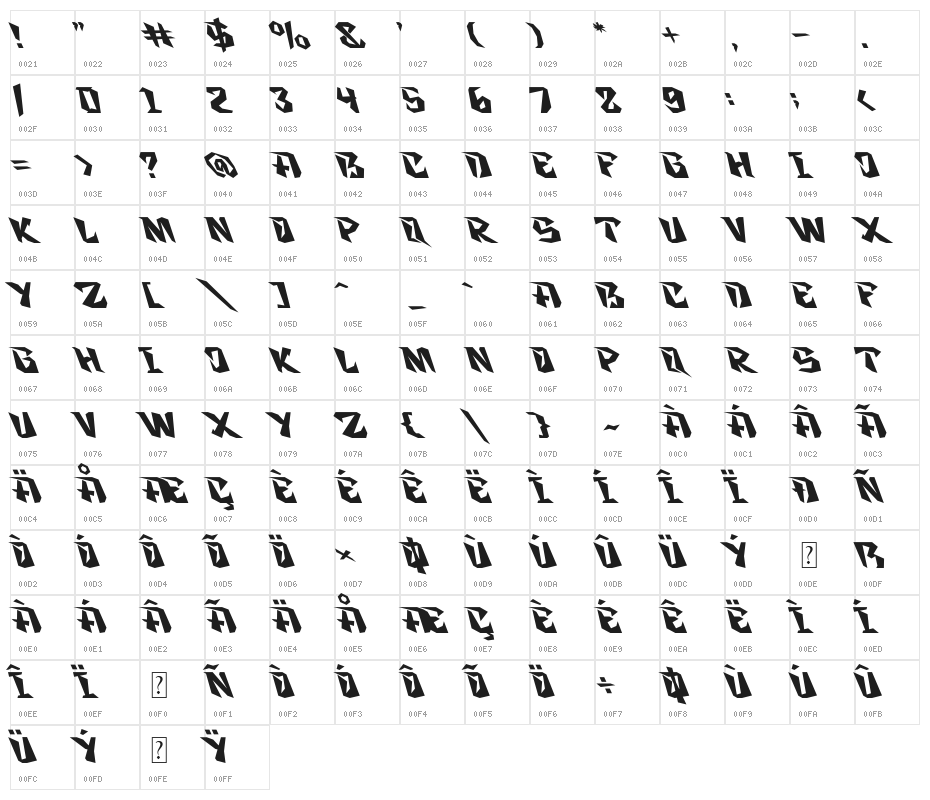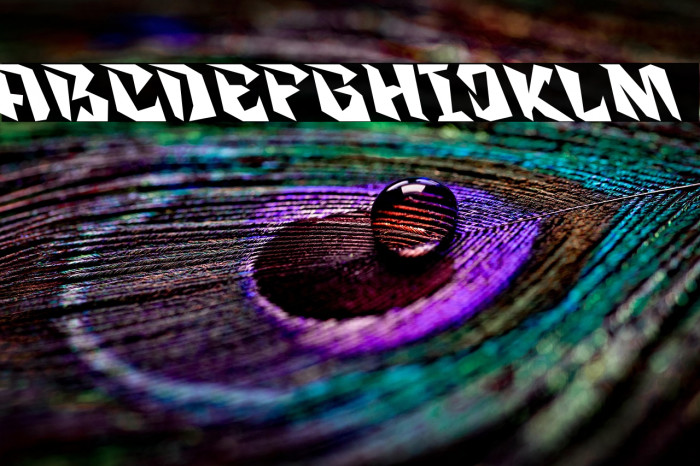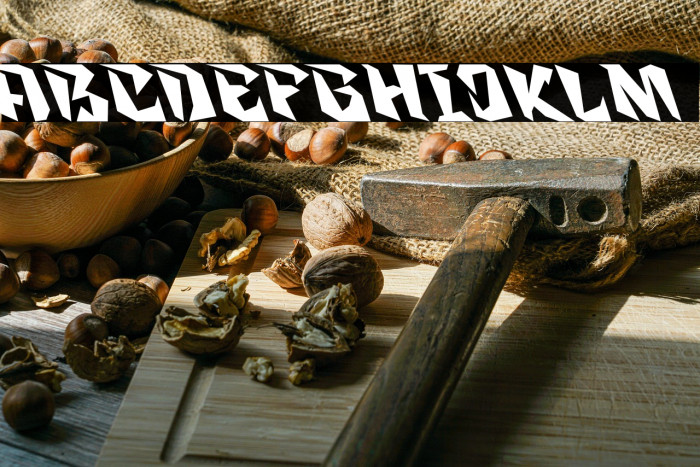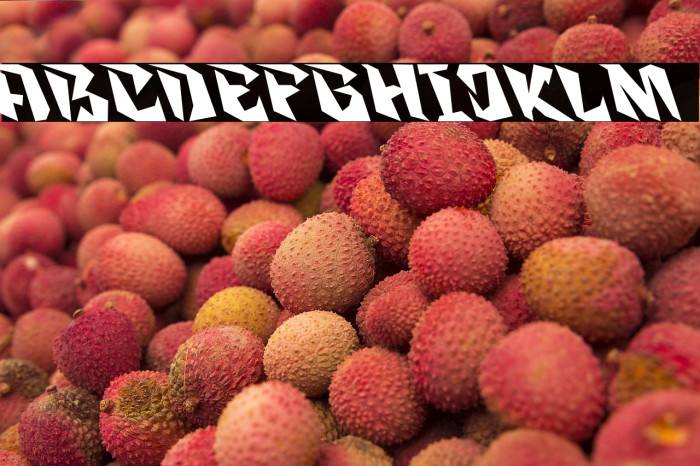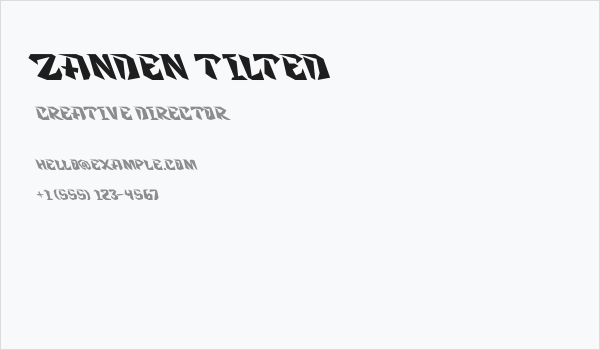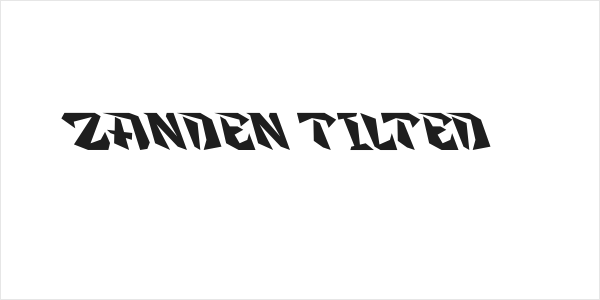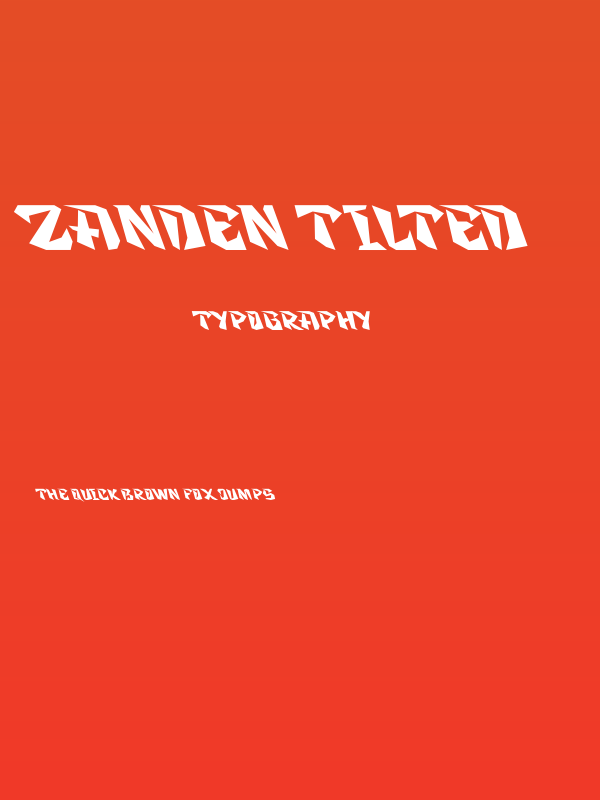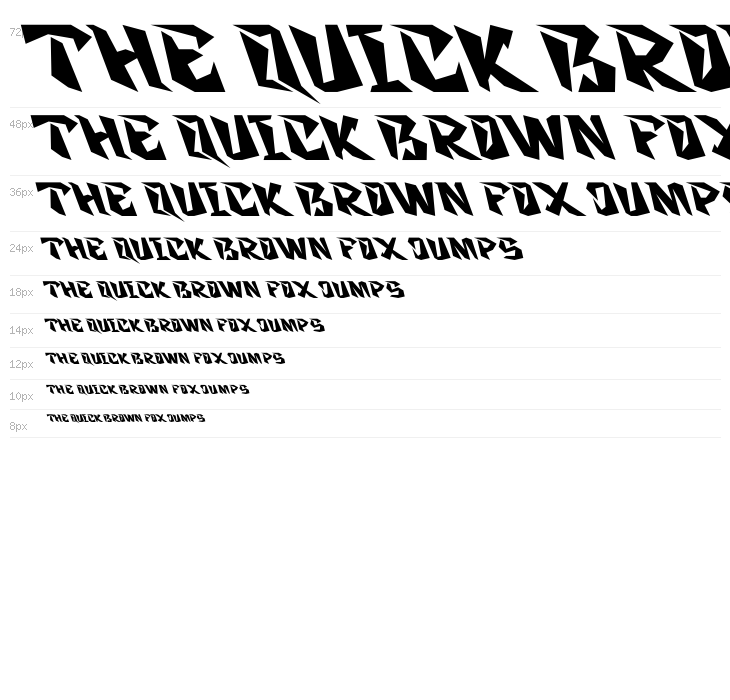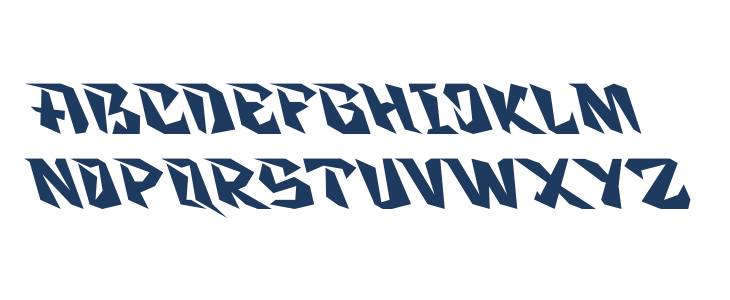
Zanden Tilted Font
Zanden Tilted Description
This font features a bold and angular design, characterized by its sharp, geometric shapes and tilted orientation. The letters are constructed with a series of jagged edges and pointed tips, giving it a dynamic and aggressive appearance. The uppercase and lowercase letters maintain a consistent style, with a strong emphasis on diagonal lines and sharp angles. Numbers and special characters follow the same design principles, ensuring a cohesive look across all glyphs. This font is highly decorative and makes a strong visual impact, suitable for projects that require a bold statement.
| Proposed Projects | Ideal for edgy branding, poster designs, album covers, and video game graphics. |